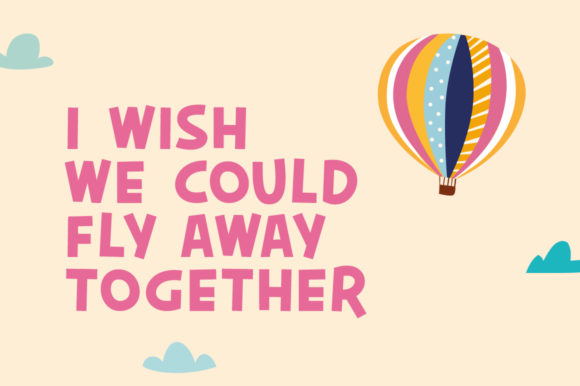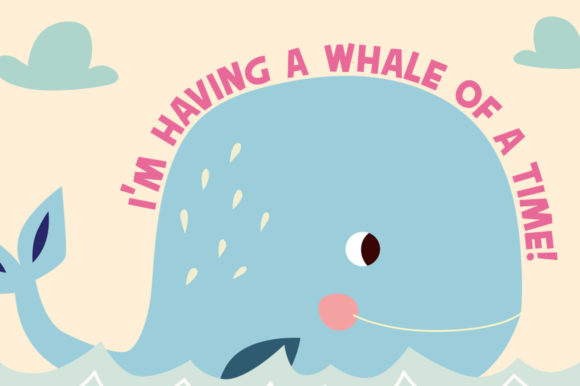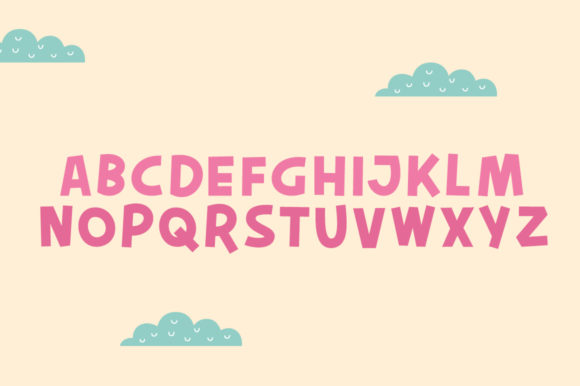
Introduction to Monsieur Font Font
Fonts play a crucial role in design, and the Monsieur Font font is a typeface that brings both character and versatility to any project. Whether you’re working on a branding project, a website, or a print design, the Monsieur Font font offers a unique style that can elevate your work.
Monsieur is a cute and whimsical display font that feels slightly cartoonish.
It will add a quirky and playful touch to a wide range of crafting ideas .
The Monsieur Font font is more than just a typeface – it’s a design tool that helps you communicate your message with style and clarity. Its unique character set and versatile design make it suitable for a wide range of applications, from elegant invitations to bold headlines.
With its carefully crafted letterforms and balanced proportions, the Monsieur Font font ensures readability and visual appeal across all mediums.
The Monsieur Font font stands out with its unique design, exceptional readability, and versatility across various design applications.